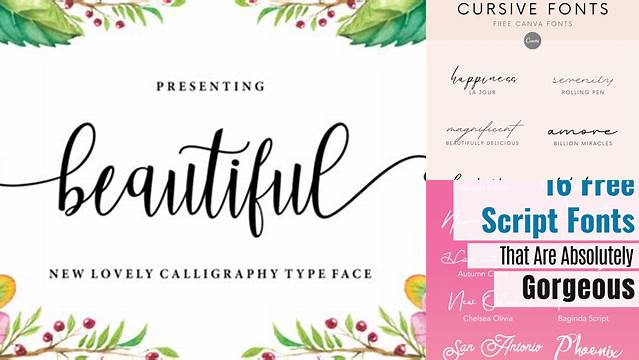
Hey everyone! If you're anything like me, you're always on the hunt for the perfect font. And let's be honest, there's just something undeniably elegant and cool about cursive fonts, right? They add a touch of personality and flair to anything, whether it's a wedding invitation, a social media post, or a website design. The problem? Finding beautiful cursive fonts that are actually copyright free! No one wants to get slapped with a hefty fine for accidentally using a font they didn't have permission to use. But fear not, because I'm here to guide you through the wonderful world of copyright-free cursive fonts, helping you find stunning options without the legal headaches. Let's dive in and explore some fantastic resources and tips to get you started.